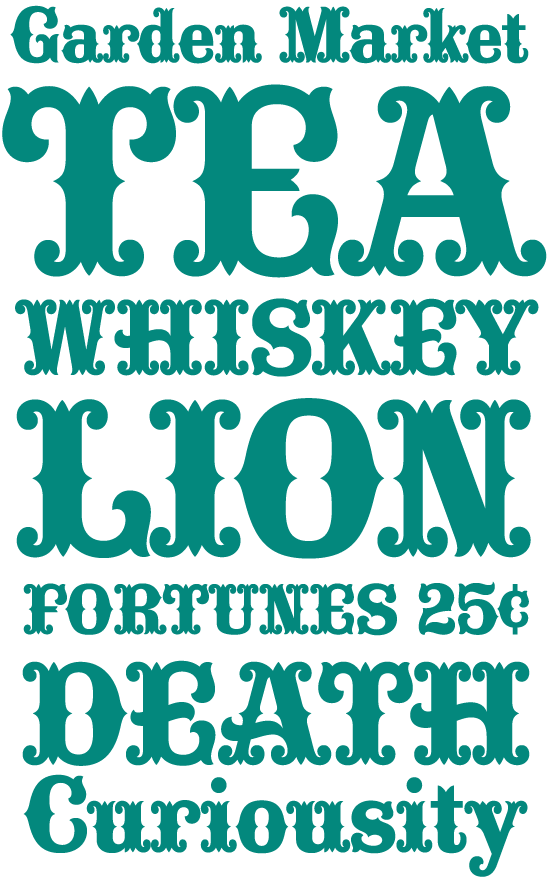
Davison Baroque, designed by Dave Davison and digitized by Mathieu Christe, was film no. 5405 and no. 5406 in the original Photo-Lettering archive. It’s the perfect illustrated, bifurcated and ball-terminated alphabet for any Tuscan tendencies.